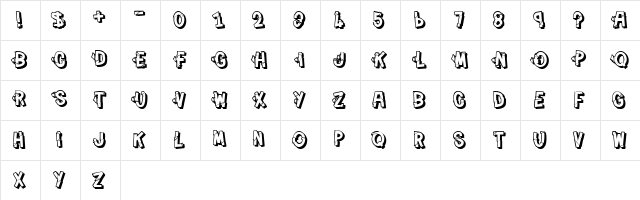
Peinture Fraiche Regular
| Foundry | QKila |
| Designer | Qkila |
Design Context for Peinture Fraiche Typeface
Peinture Fraiche is a composed and adaptable typeface that performs quietly and consistently across a wide range of design contexts.